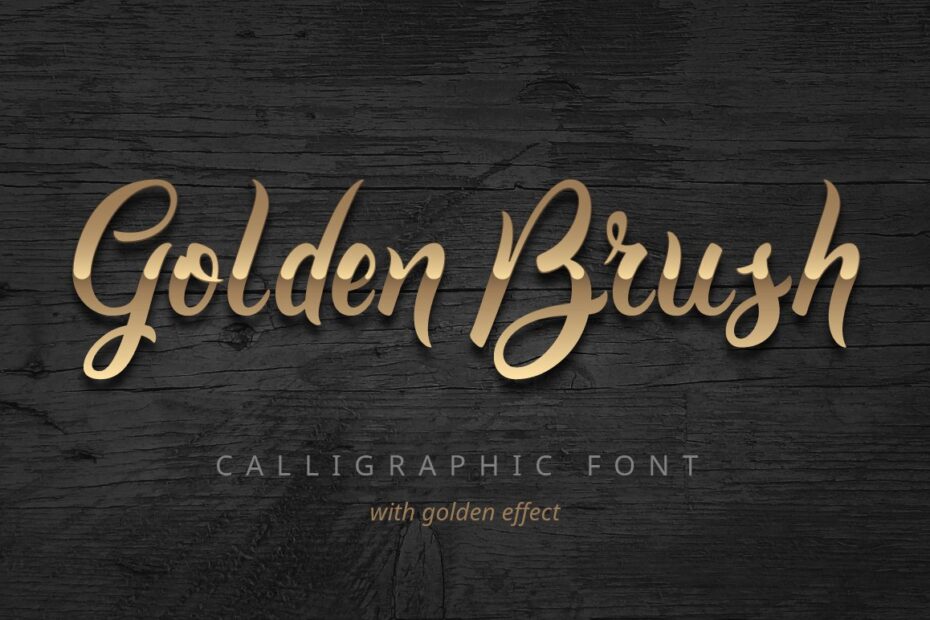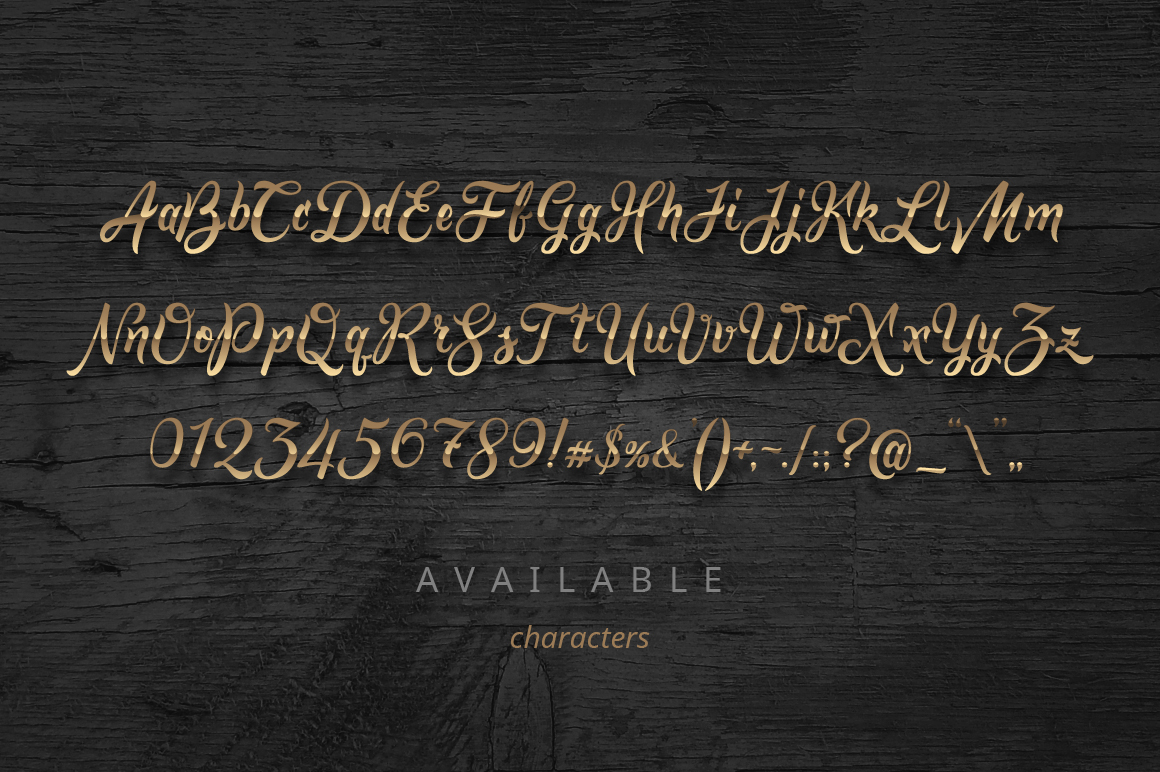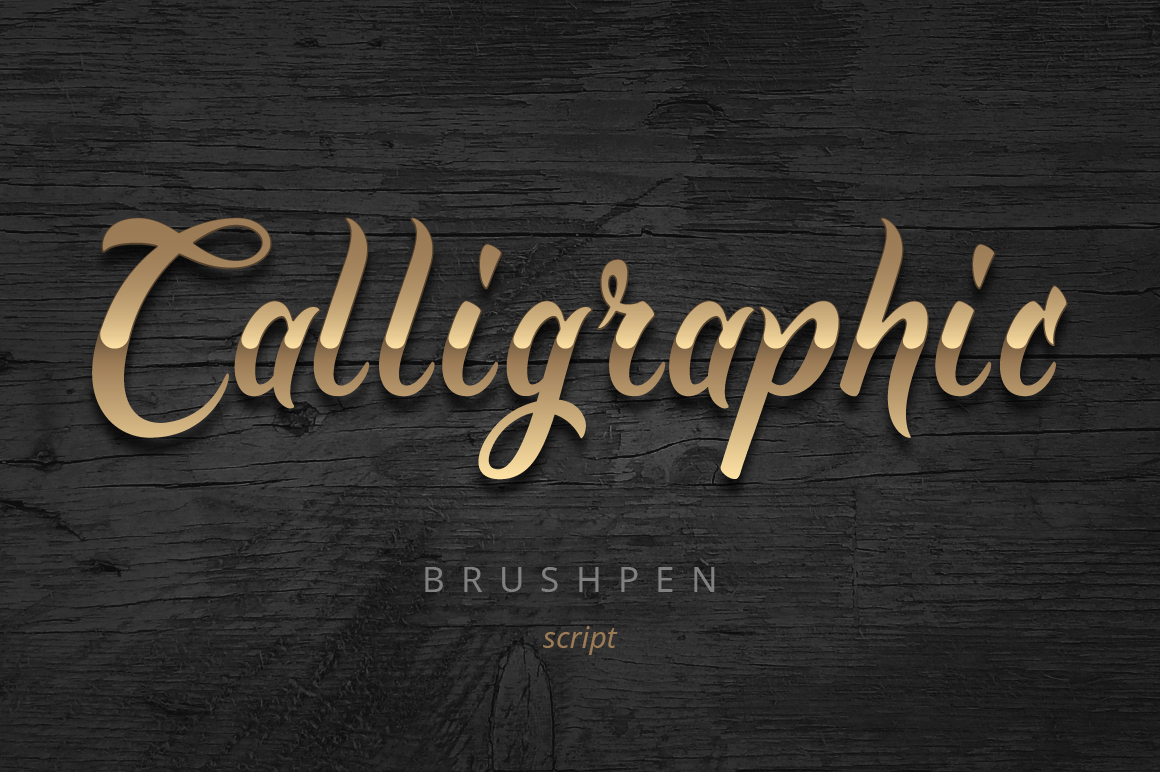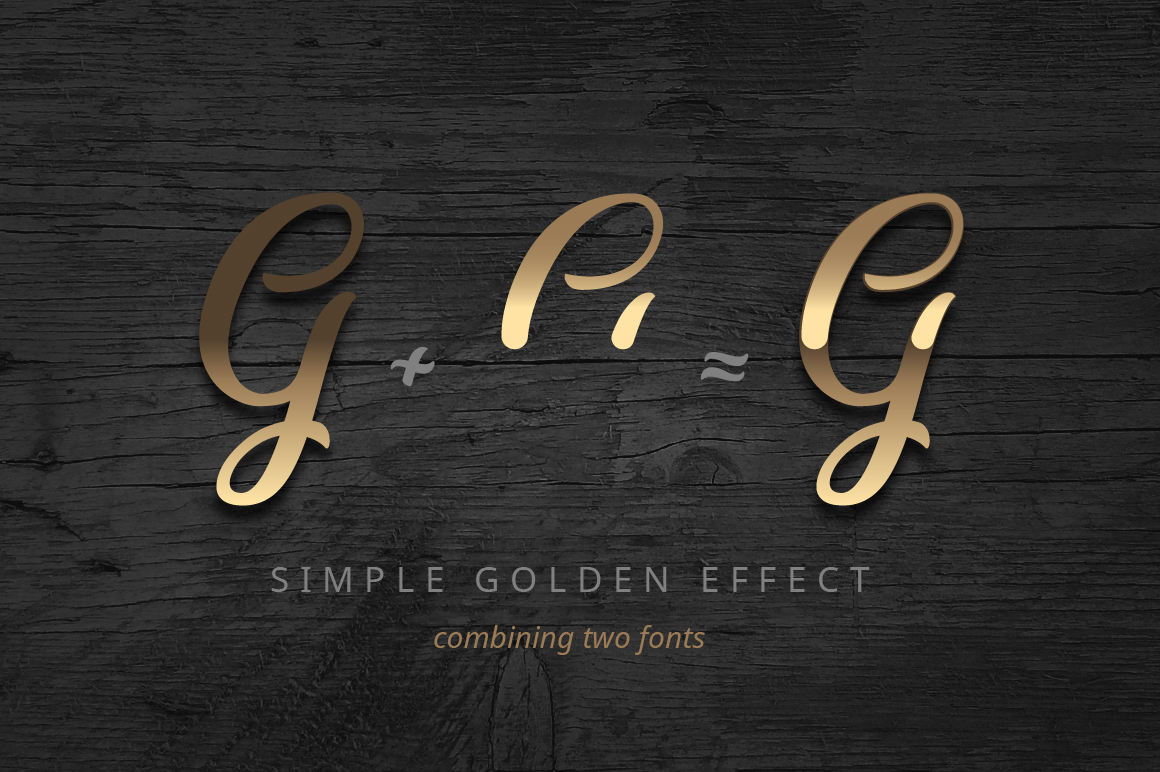
Unlock the Art of Handmade Calligraphy with Golden Brush Font
This handmade calligraphy font is more than just a font – it’s a pair of fonts that, when combined, create a unique highlight look and feel. By layering the two fonts on top of each other and adding a pop of color, you can achieve a shiny text effect that’s sure to grab attention. Whether you’re a seasoned designer or just starting out, the Golden Brush Font is a valuable addition to your toolkit.
Key Features of Golden Brush Font
- Font Size: 300 glyphs, including uppercase and lowercase letters, numbers, and punctuation
- Unique Characteristics: Hand-painted, brush-style font with a warm, vintage feel; perfect for creative projects, branding, and advertising
- Language Support: Latin-based languages, including English, Spanish, French, German, Italian, and many more
Designer Review: Golden Brush Font
Overall, I think Golden Brush Font has some great qualities, but it also has some areas where it falls short. ✨
- ✨ Elegant and refined feel: The Golden Brush Font has a beautiful, cursive aesthetic that’s perfect for adding a touch of sophistication to your designs.
- ✨ Wide range of languages supported: This font supports a wide range of languages, making it a great choice for projects that require multilingual support.
However, there are some limitations:
- ⚠️ Limited font sizes: The font looks great at larger sizes, but it can start to look a bit fuzzy at smaller sizes.
- ⚠️ Not ideal for bold text: The font’s cursive design makes it not ideal for bold or all-caps text, as it can become difficult to read.
- ⚠️ Limited customizability: The font doesn’t have a lot of customizability options, which can make it difficult to tailor it to your specific design needs.
Overall, I think Golden Brush Font is a solid choice for designers who want a elegant, refined font for their projects. However, it may not be the best choice for projects that require bold or all-caps text, or for designers who want a lot of customizability options.
Use the Golden Brush Font to add a touch of elegance and sophistication to your designs.
It’s perfect for creating invitations, wedding stationery, and other special occasion materials.